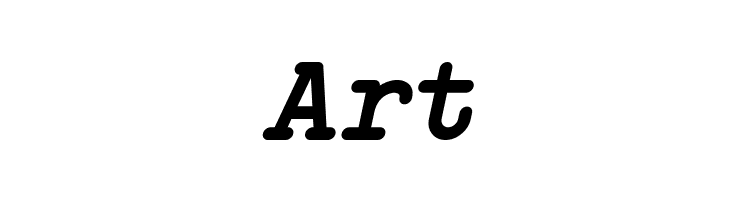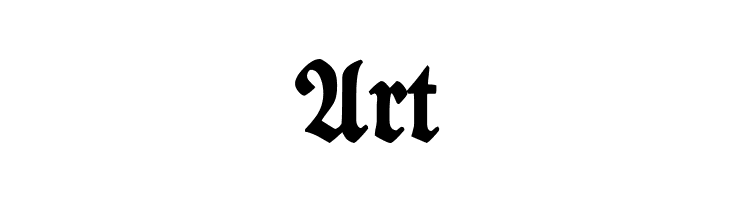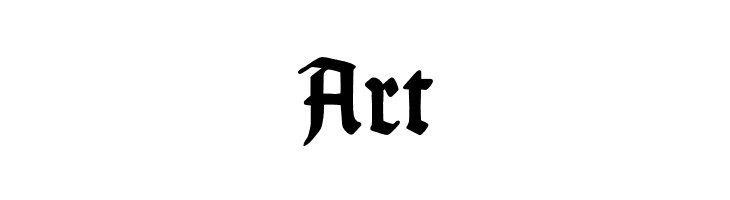
A bold, monospaced typewriter-style font with a vintage feel.
A bold, italicized typewriter-style font with rounded edges and dynamic slant.
A bold, elongated font with a modern, condensed style.
A bold, italicized font with a sleek, modern look and medium contrast.
A bold, 3D geometric font with a brick-like design.
A bold, ornate blackletter font with intricate medieval styling.
A bold, intricate Blackletter font with ornate, angular letterforms.